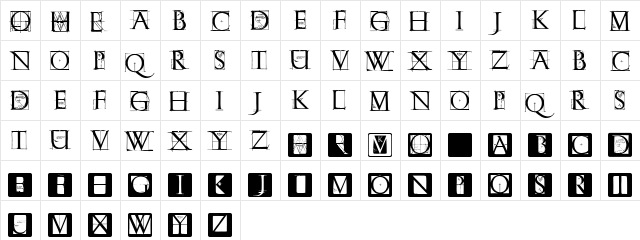
RomanGridCaps Regular
Design Context for RomanGridCaps Typeface
RomanGridCaps is a composed and adaptable typeface that performs quietly and consistently across a wide range of design contexts.
Pro Tip: Use RomanGridCaps in both headline and body roles to test its range before committing to a single application.